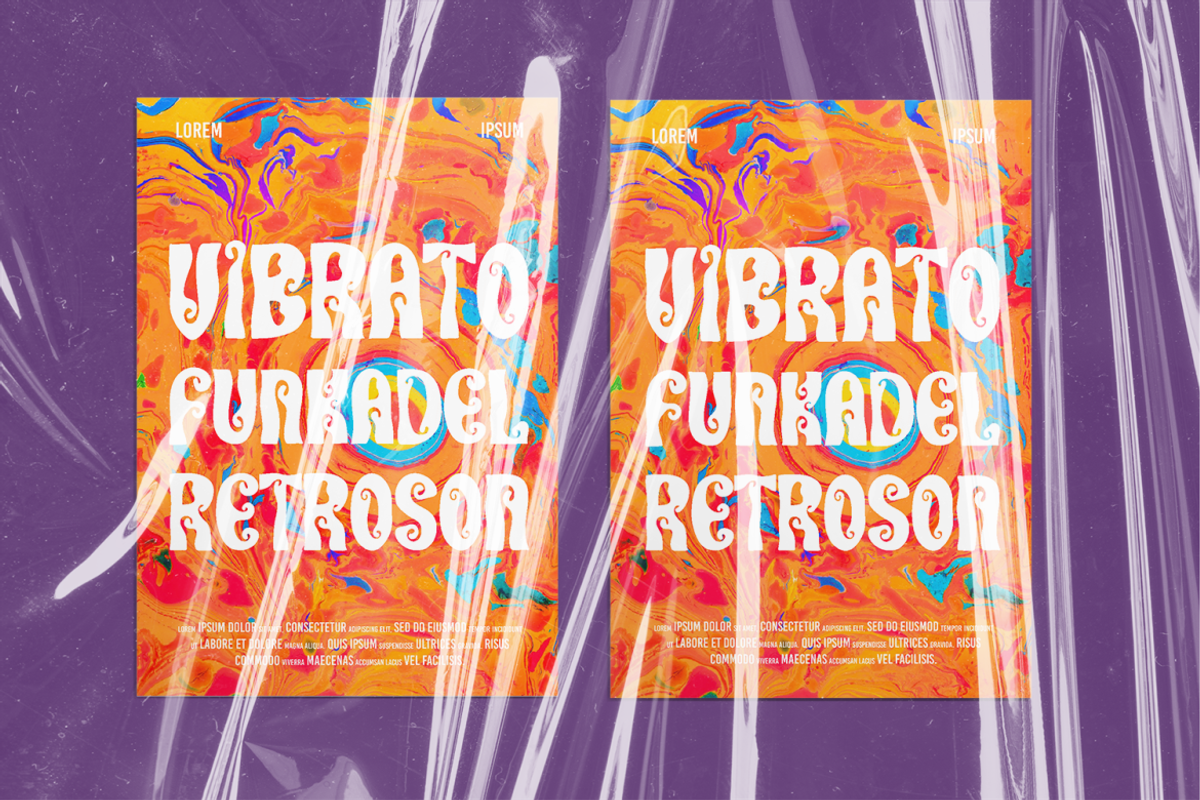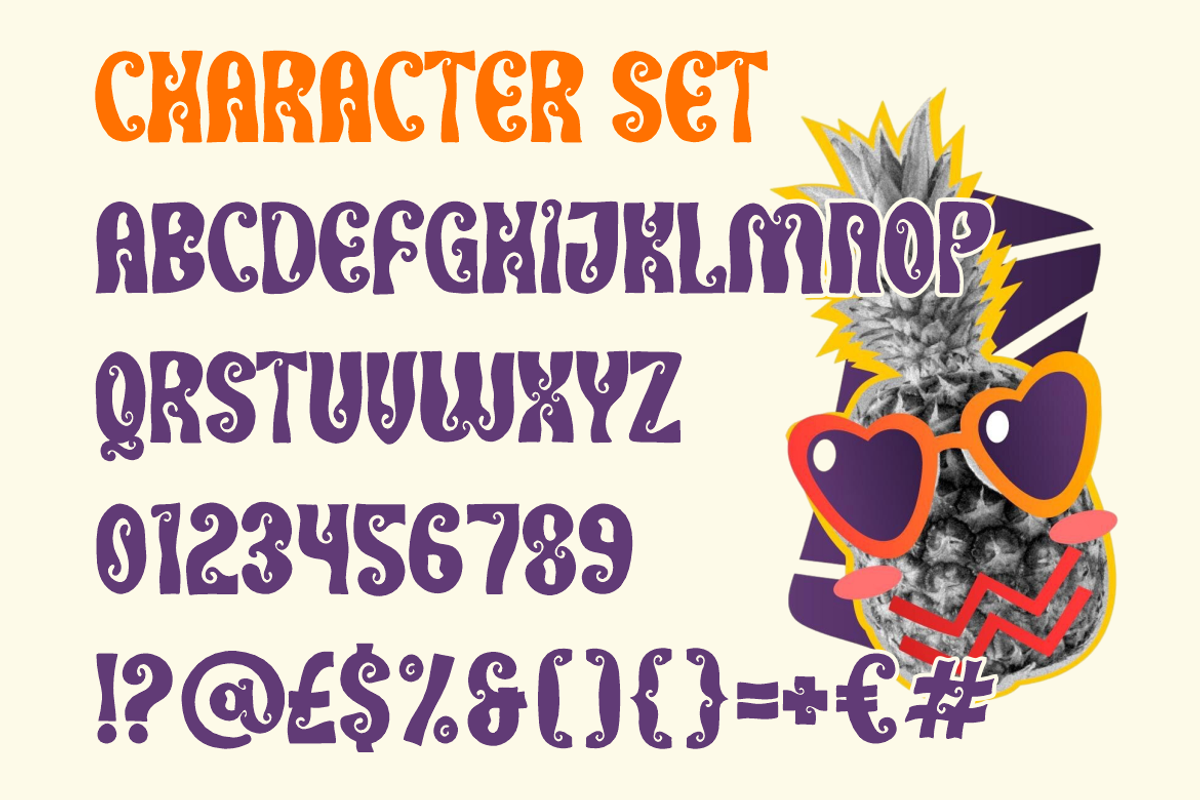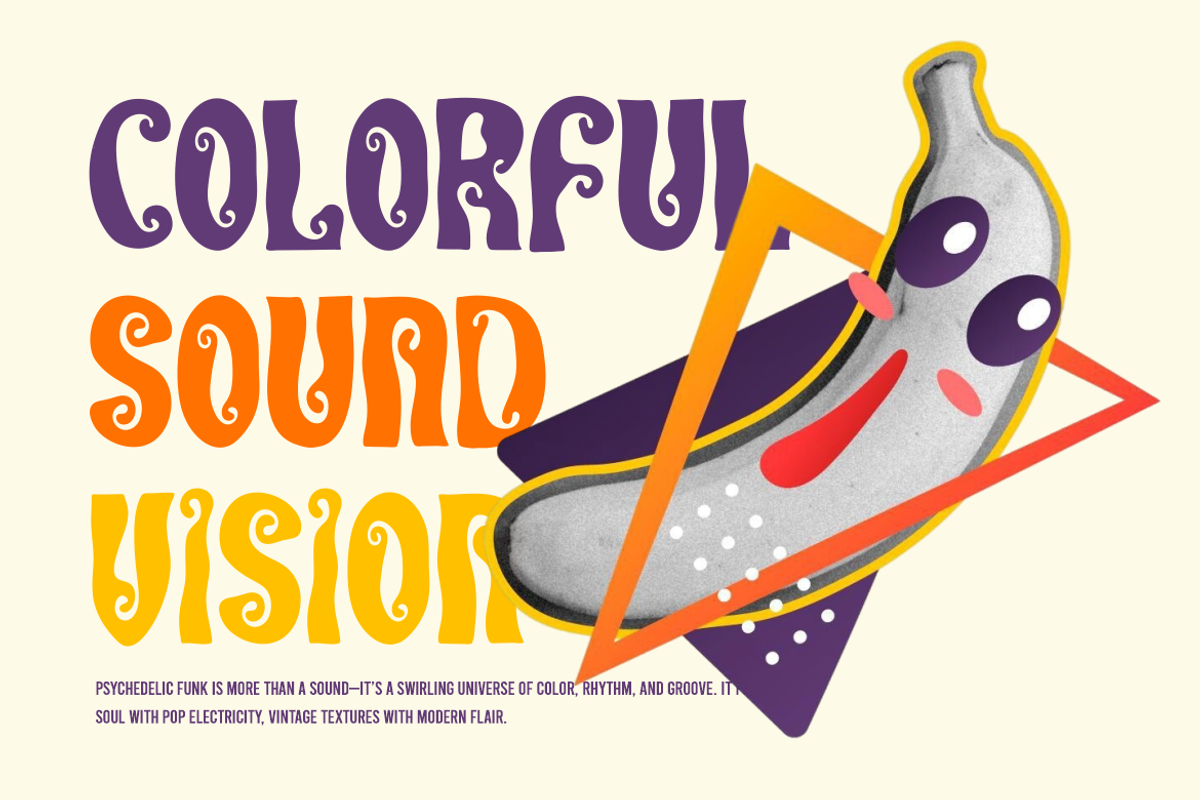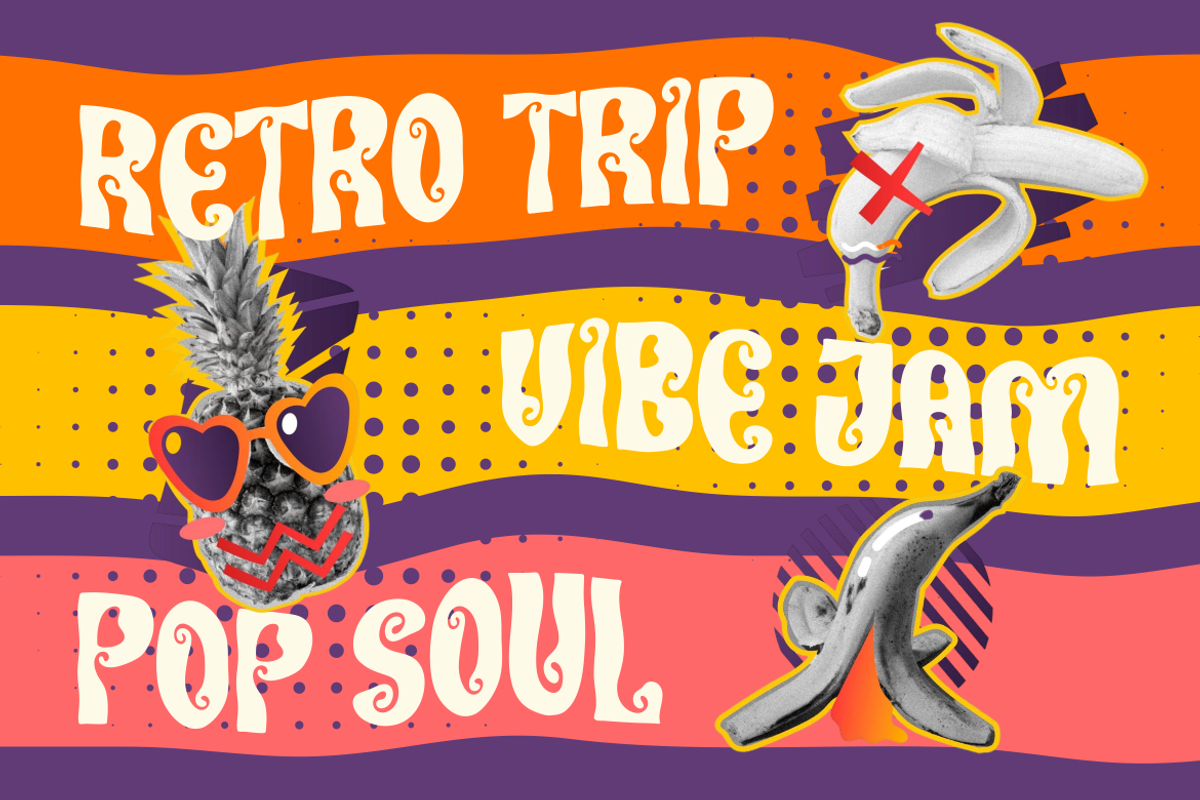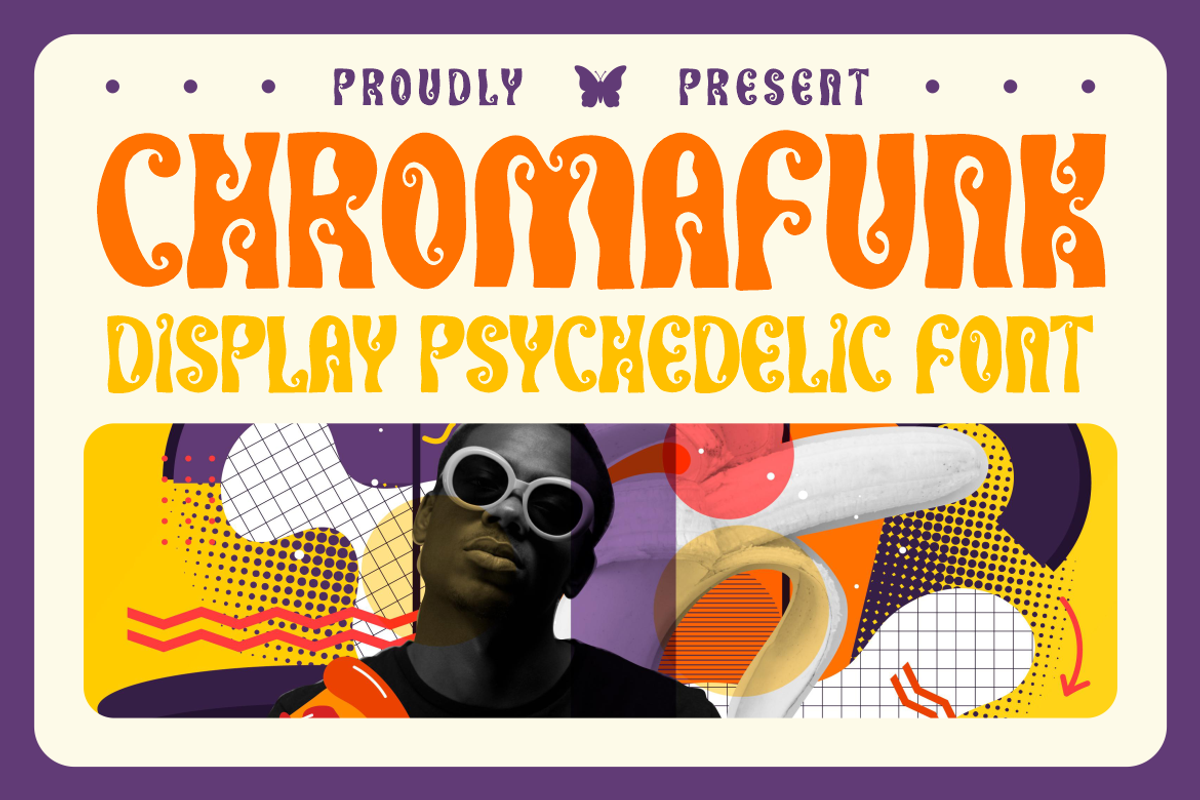
Chromafunk Display Psychedelic Font
Chromafunk Display Psychedelic Font is a bold and playful typeface inspired by retro design movements of the 70s and 80s. Its rounded edges, fluid curves, and eccentric letterforms capture the psychedelic era’s spirit, making every word feel like a visual rhythm. The font’s quirky style blends vintage textures with modern energy, creating a unique option for artistic projects. Each character radiates personality, designed to instantly draw attention and spark a sense of nostalgia.
Perfect for designs that need vibrant character, Chromafunk is versatile across posters, packaging, logos, and social media graphics. Its retro appeal makes it an excellent choice for music events, fashion branding, Valentine’s cards, or any creative project aiming to channel funk, soul, or classic pop aesthetics. Whether for bold headlines, quirky quotes, or eye-catching stickers, this font transforms ordinary text into an unforgettable design element. With its striking shapes and expressive flow, Chromafunk is a true celebration of psychedelic creativity.